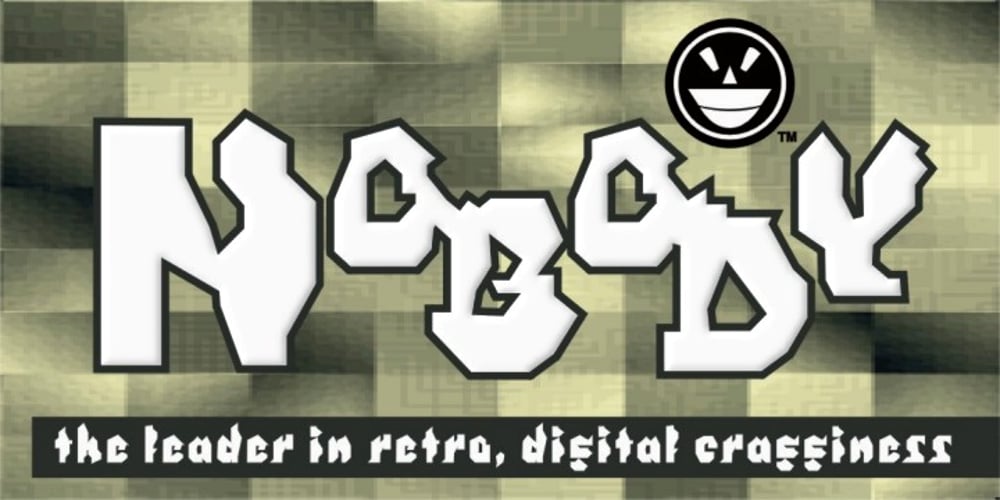
WILD1 Nobody Font Family was designed by Michael Gene Adkins and published by The Fontry. WILD1 Nobody contains 4 styles and family package options. Nobody has a digital cragginess most peculiar to it like this face. The screen isn’t breaking up. The chunks you see are real, stair-stepping their way down and around those blocky letterforms at whatever angle they please. Don’t adjust your flat-screen. This font has no mercy or care for smooth pixels. Nobody is just one font in a package of five known as Wild Bunch Pak #1.